Typography changes how a candle feels before anyone even smells it.
You can have beautiful amber jars, premium soy wax, custom dust covers, and carefully blended fragrance oils โ but if the label typography feels generic, the whole product starts looking forgettable. That sounds harsh, but after browsing hundreds of Etsy candle listings and boutique brands lately, it becomes obvious pretty fast.
The brands people save on Pinterest or stop scrolling for usually have one thing in common: intentional typography.
And script fonts tend to do a lot of the heavy lifting.
Some make a candle feel soft and romantic. Others lean earthy and handmade. A few bring that clean luxury spa vibe that looks expensive even with minimal packaging. The font becomes part of the scent story.
This guide covers 12 modern script fonts that work especially well for candle labels, packaging, logos, and branding systems โ from elegant luxury scripts to playful retro lettering styles.
12 Best Modern Script Fonts for Candle Labels
1. Gimbaya
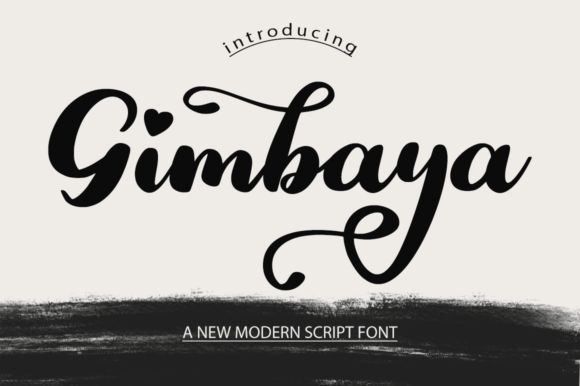
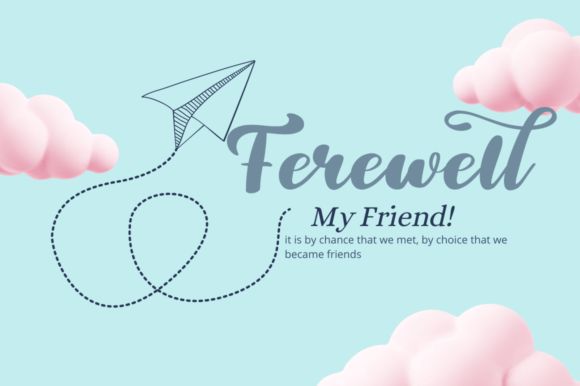
Gimbaya has that soft luxury look a lot of boutique candle brands try to achieve.
The lettering feels elegant and flowing, but not overly dramatic. Some calligraphy fonts get so decorative they become exhausting on packaging. Gimbaya avoids that.
What I like most is the spacing. Even with the swashes, the font still feels clean enough for smaller labels.
Best for:
- spa-inspired candle brands
- feminine packaging
- wedding candles
- minimalist luxury aesthetics
- floral collections
It pairs beautifully with:
- cream labels
- sage green
- matte black jars
- dusty rose packaging
- linen textures
The included alternates are also useful if you want logos to feel slightly more custom without hiring a lettering artist.
2. Spidemix
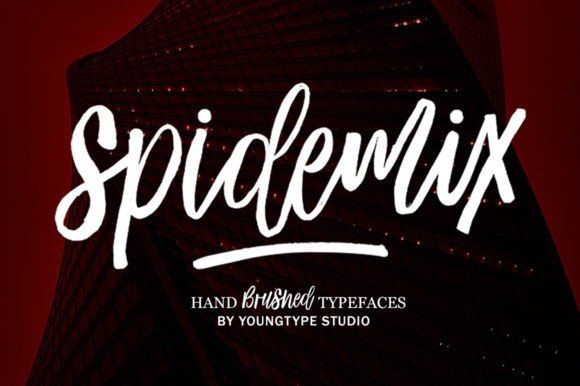
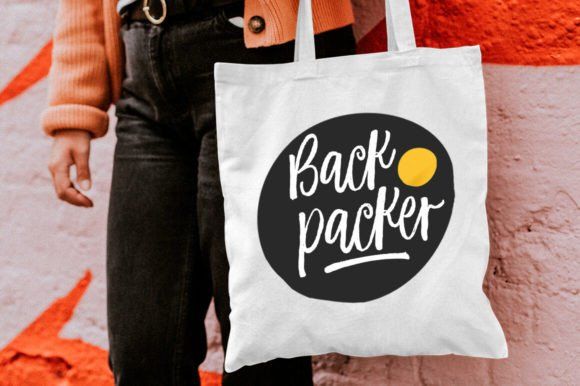
Spidemix feels energetic and modern in a completely different way.
This isnโt delicate candle branding. Itโs bold, brushed, expressive typography that immediately grabs attention. The hand-painted texture makes it feel more authentic and less polished โ which actually works really well for certain handmade brands.
Best for:
- masculine candle collections
- urban aesthetics
- seasonal drops
- edgy branding
- bold scent names
I could easily see this working on matte black jars or darker moody packaging.
One detail I genuinely like is the underline feature. Used carefully, it adds movement without making the label messy.
3. Hormuz
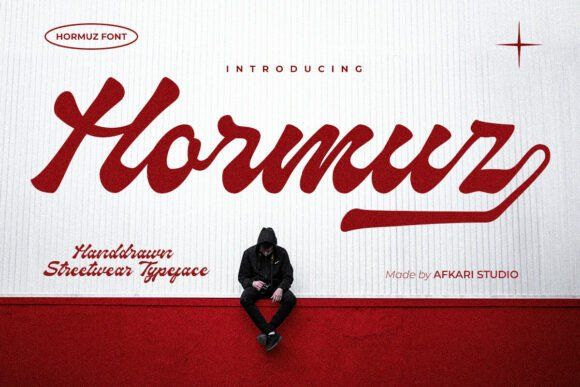
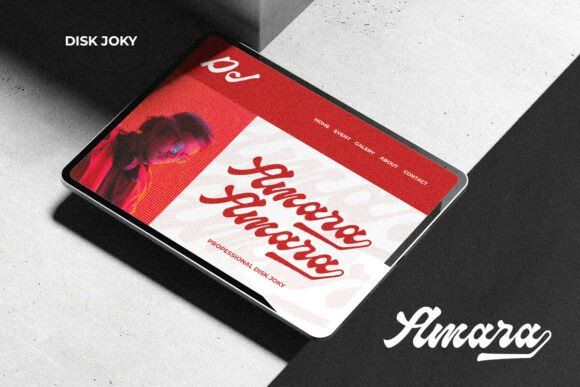
Hormuz completely breaks away from the soft minimalist candle trend.
It pulls inspiration from streetwear and graffiti aesthetics, which sounds risky for candles at first โ but honestly, thatโs exactly why it stands out.
This font feels confident. Loud in a good way.
Best for:
- concrete vessel candles
- fashion-inspired brands
- masculine luxury scents
- limited-edition collections
- creative lifestyle brands
A lot of candle branding starts blending together after a while. Hormuz doesnโt.
4. Southlove
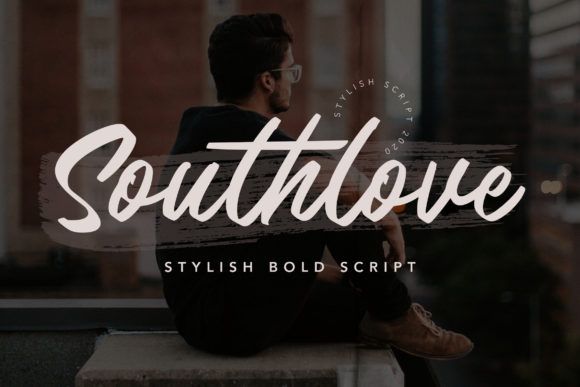
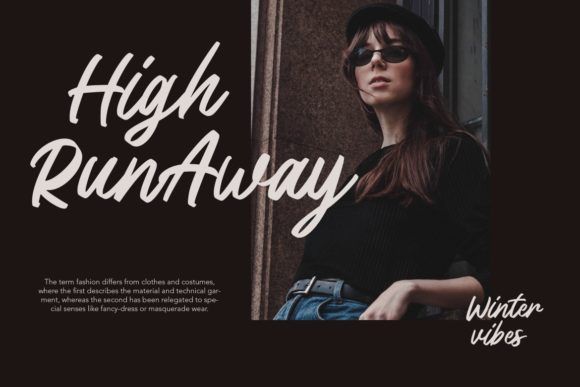
Southlove sits somewhere between rugged and refined.
The brush lettering has enough texture to feel handmade, but it still stays readable on packaging โ which is harder to pull off than people think.
Best for:
- coffee-inspired candles
- rustic-modern branding
- boutique fragrance collections
- masculine luxury packaging
- earthy aesthetics
What surprised me most is how flexible it feels.
With black-and-white photography and matte labels, it suddenly looks editorial and upscale. With warmer colors and kraft textures, it leans artisan and cozy instead.
That kind of versatility is incredibly useful for growing brands.
5. Antiquel
Antiquel is one of the most practical fonts in this entire list because itโs a font duo.
You get both:
- a script font
- a clean sans serif companion
And honestly, candle brands usually need both anyway.
Best for:
- minimalist candle labels
- Scandinavian aesthetics
- luxury soy candles
- clean modern packaging
- lifestyle branding
This setup works really well because you can use:
- script for logos
- sans serif for scent names
- sans serif for warning labels and details
The combination feels polished without becoming cold or sterile.
That balance is difficult to achieve.
6. Country Last Night Duo
This font duo feels warm immediately.
It has that rustic-modern aesthetic that fits perfectly with farmhouse candles, cottagecore branding, and cozy seasonal collections.
Elegant high-contrast scripts with clean spacing tend to feel the most luxurious. Fonts like Mogetta Script and Gimbaya work especially well for premium candle branding.
Typography is extremely important because it shapes first impressions. Before customers smell your candle, they judge the packaging visually, and fonts heavily influence that emotional response.